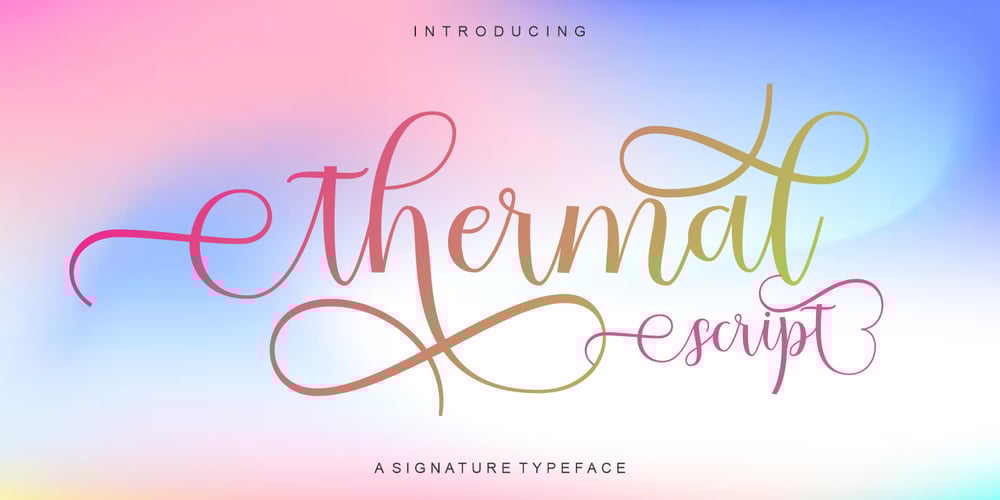
Thermal Script
Thermal Script font
Thermal Script Font Family was designed by Yusliana M Isa and published by Gian Studio. Thermal Script contains 1 styles and family package options. Thermal Script is a type of font that has an elegant and classy style. These fonts tend to have soft, graceful curves, with subtle details and balanced proportions. Typically, Thermal Script is used for designs that require a feminine or luxurious touch, such as wedding invitations, greeting cards or promotional materials for brands with a stylish and exclusive image. Elegance and understated feel are the hallmarks of the Thermal Script font, making it a popular choice for design projects that require a special touch.Thermal Script otIf you don’t have a program that supports OpenType features such as Adobe Illustrator and CorelDraw X Versions, you can access all the alternate glyphs using Font Book (Mac) or Character Map (Windows). If you have any question, don’t hesitate to contact me.Thanks for your visit.